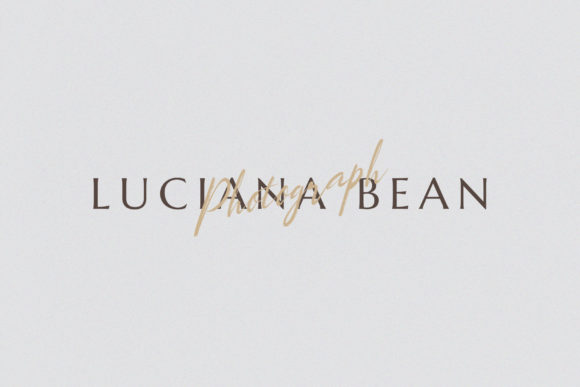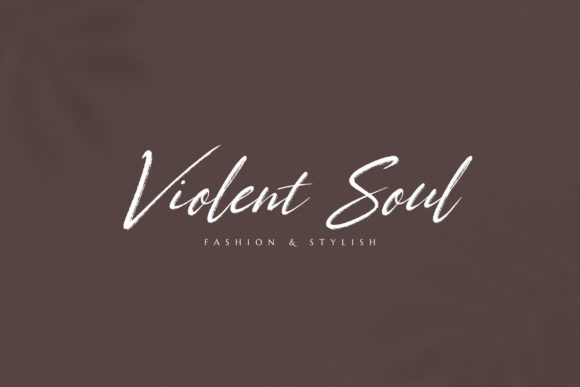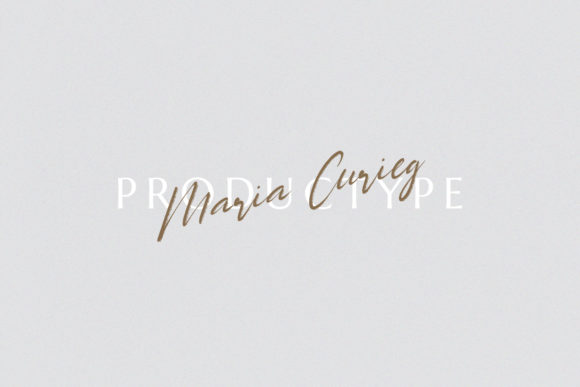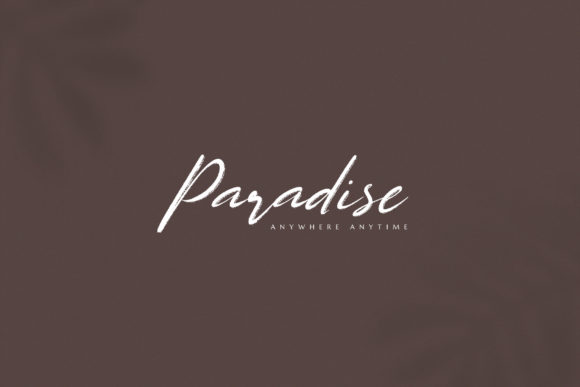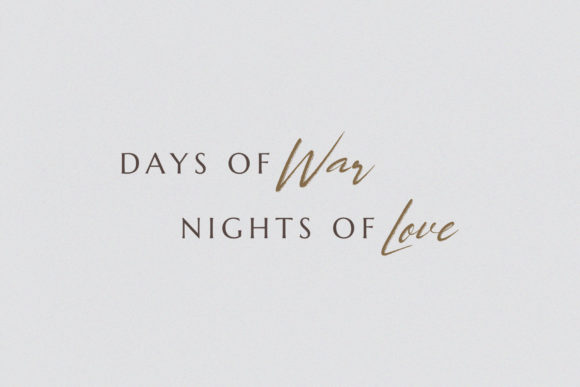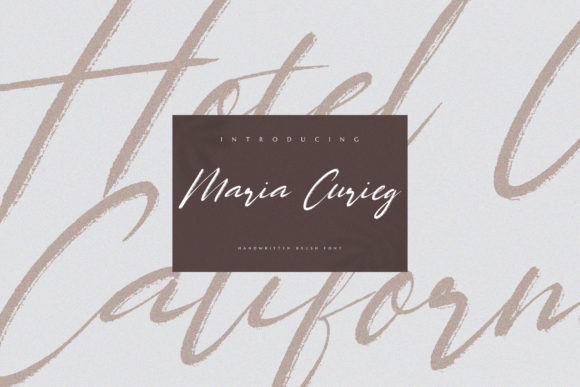
Maria Curieg Font
About Maria Curieg Font
Maria Curieg is a natural handwritten brush font perfect for a variety of design projects. Get inspired by its smooth shapes.